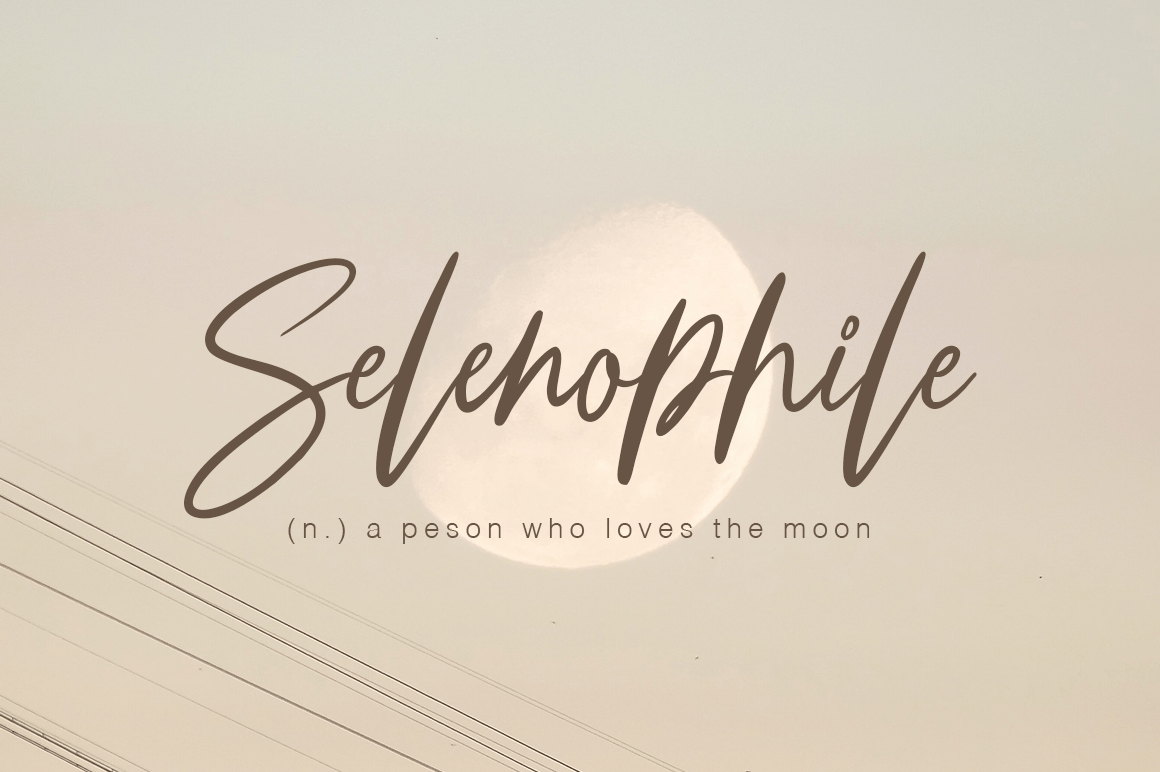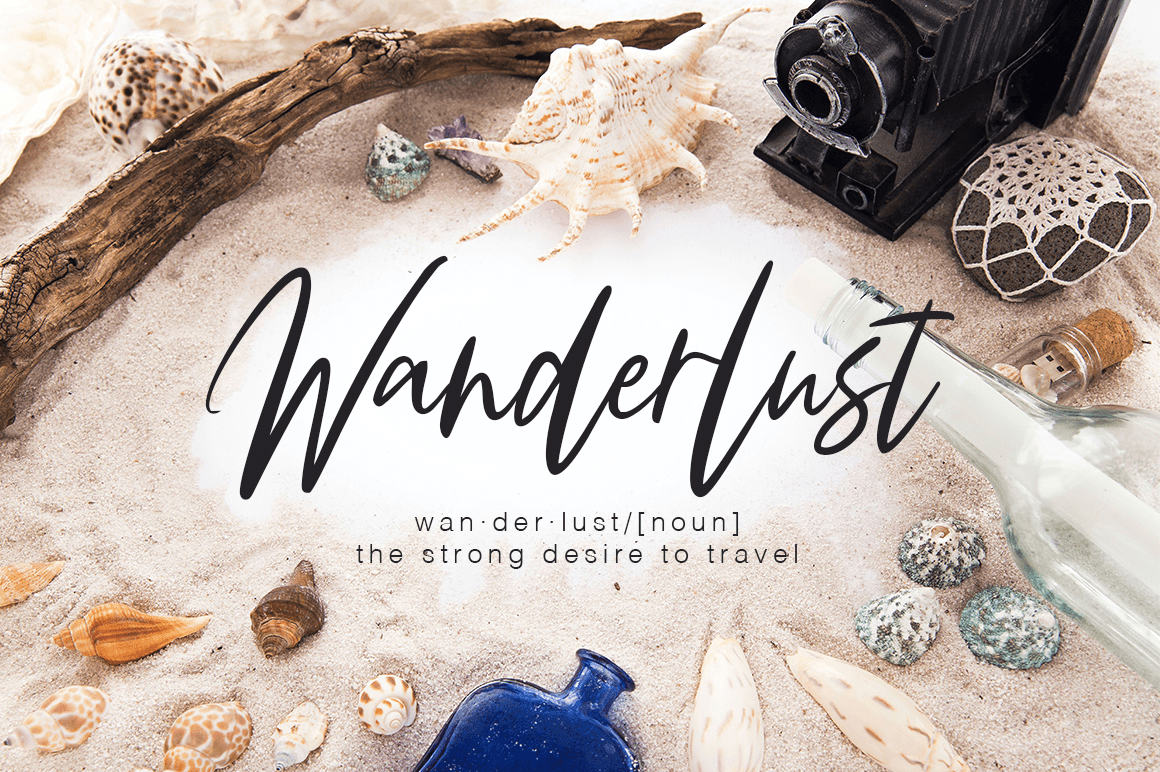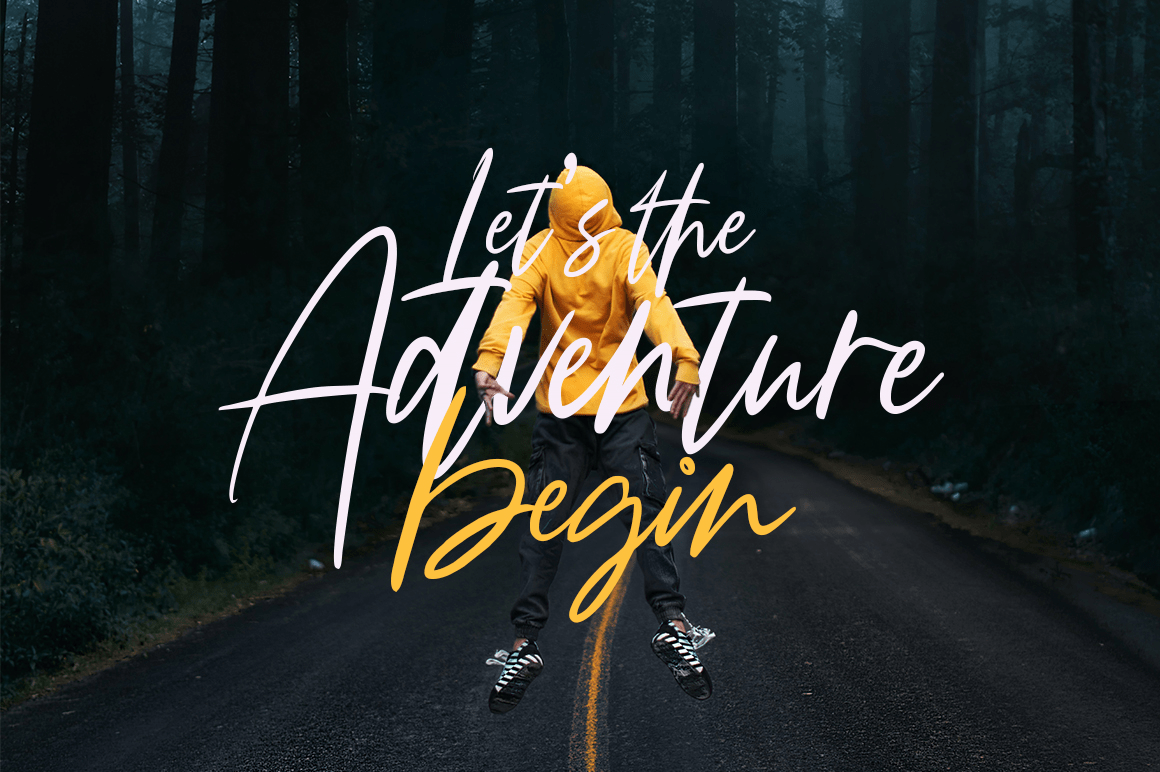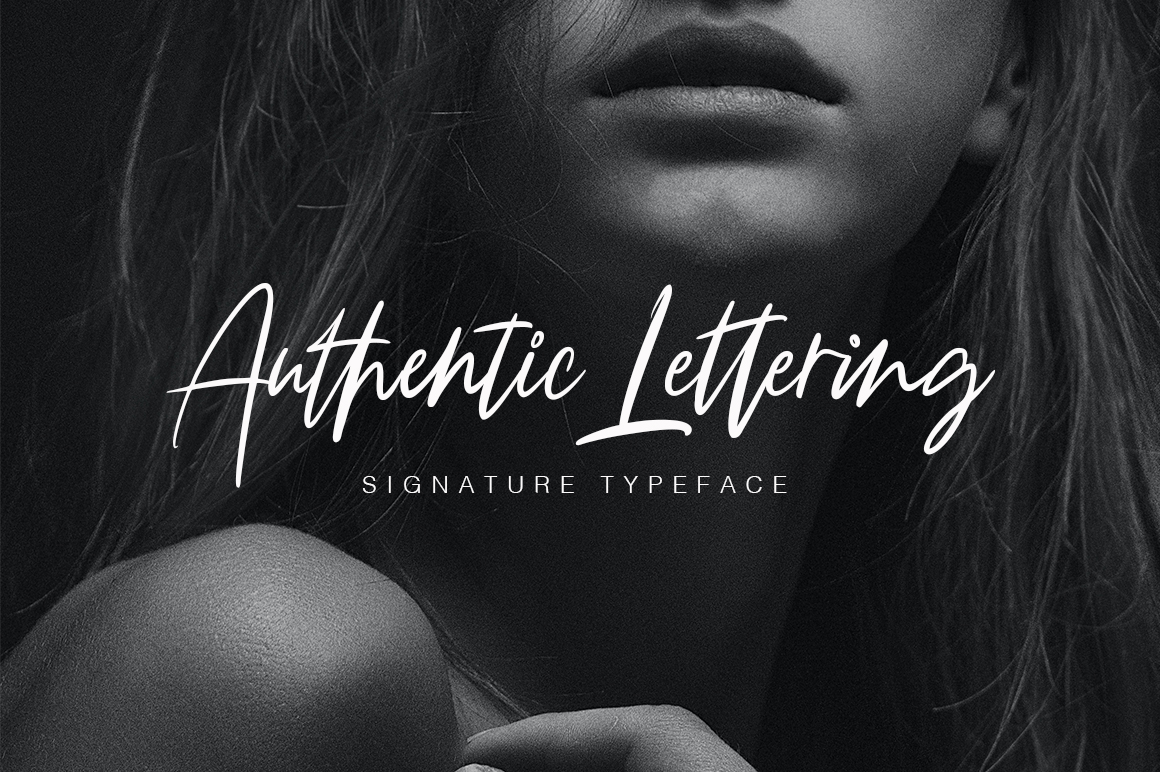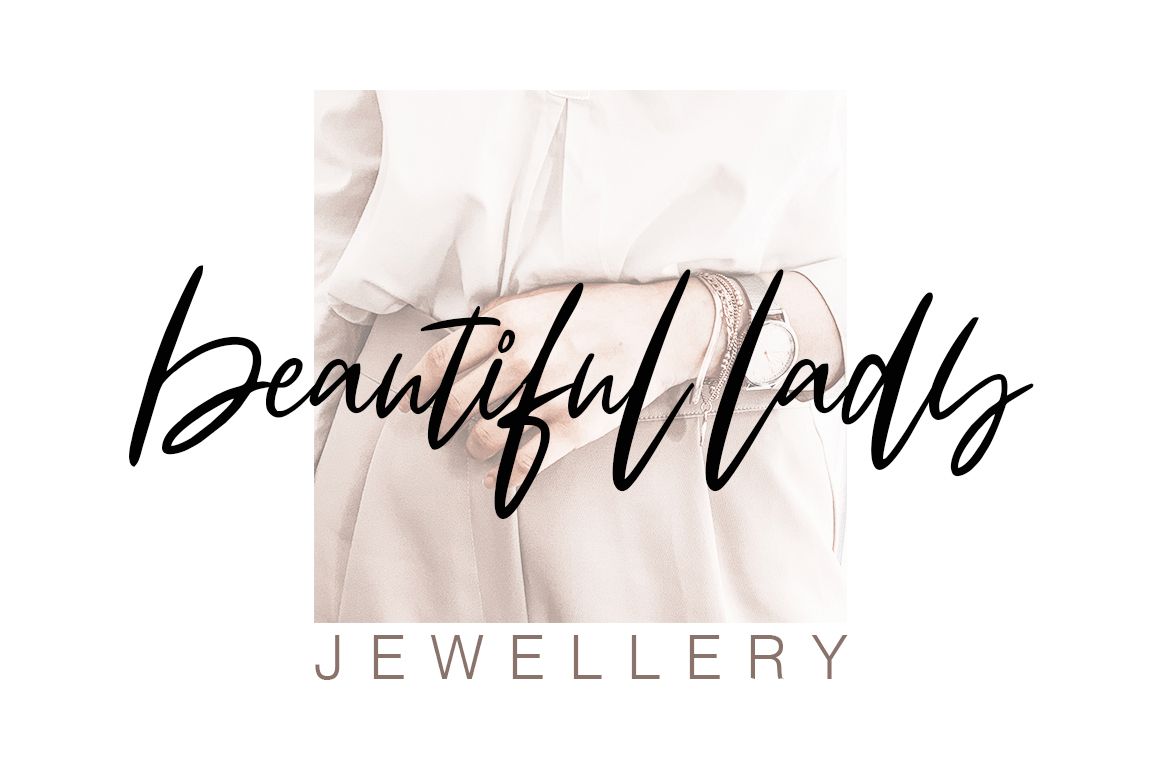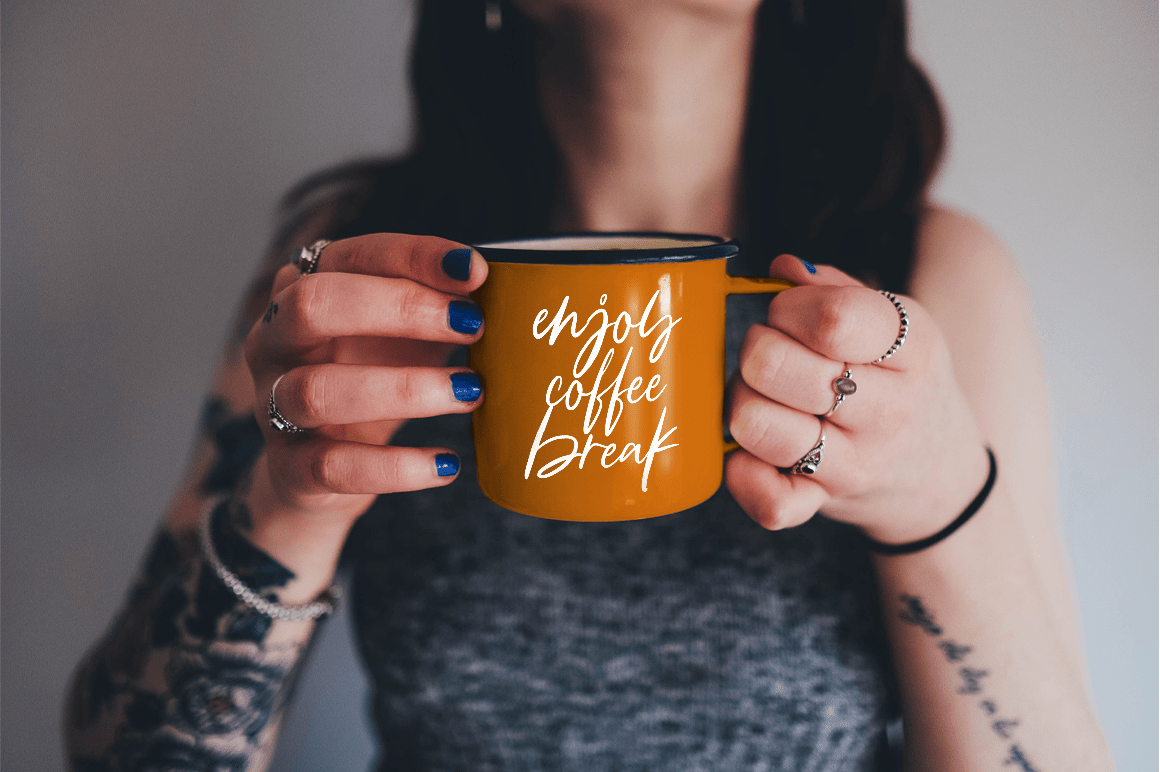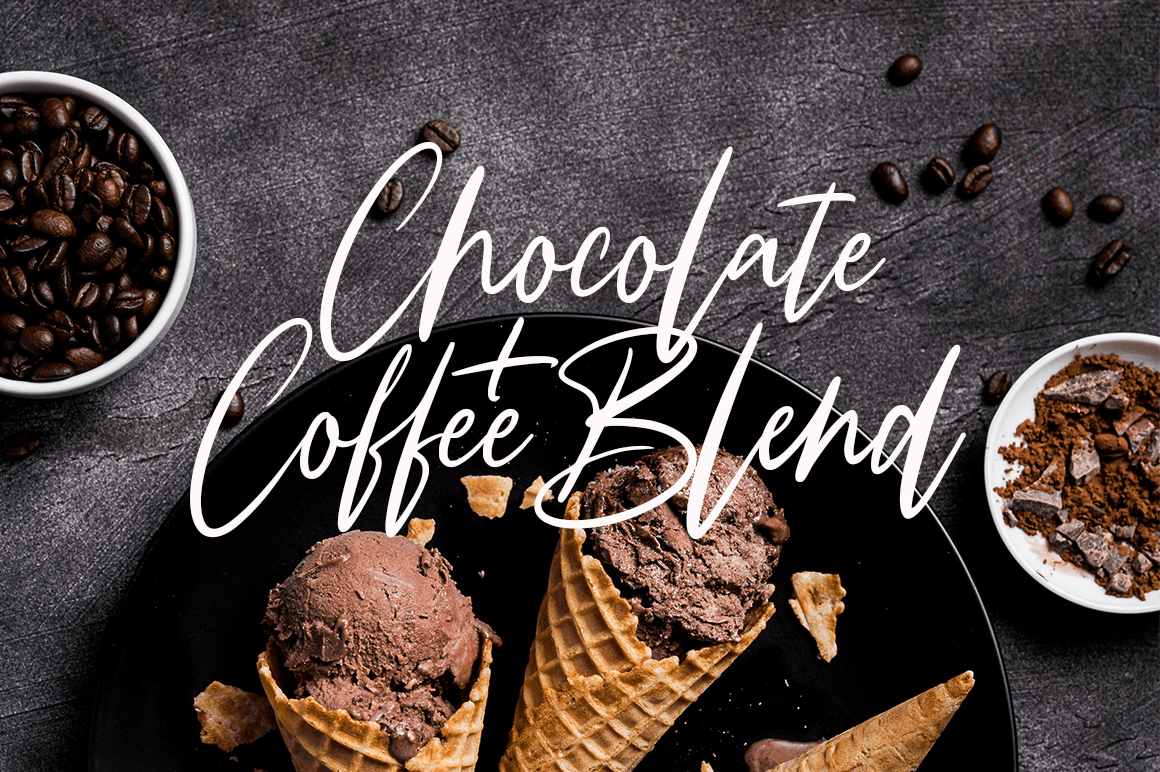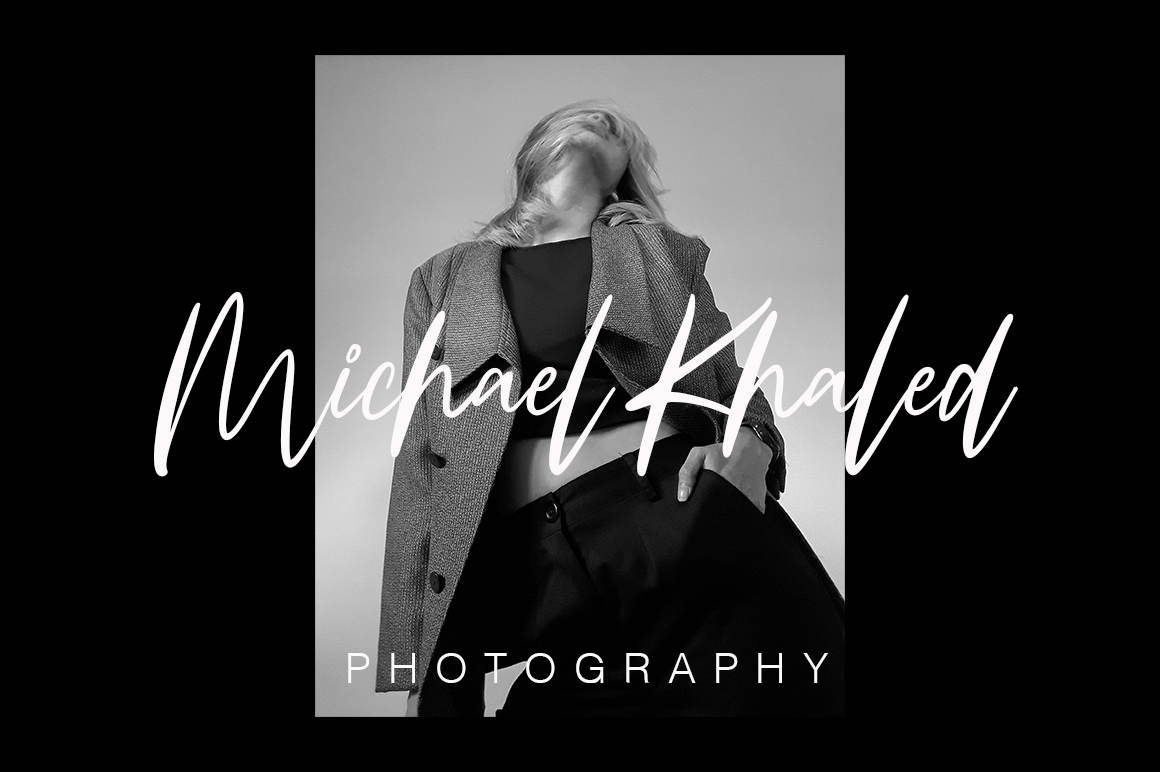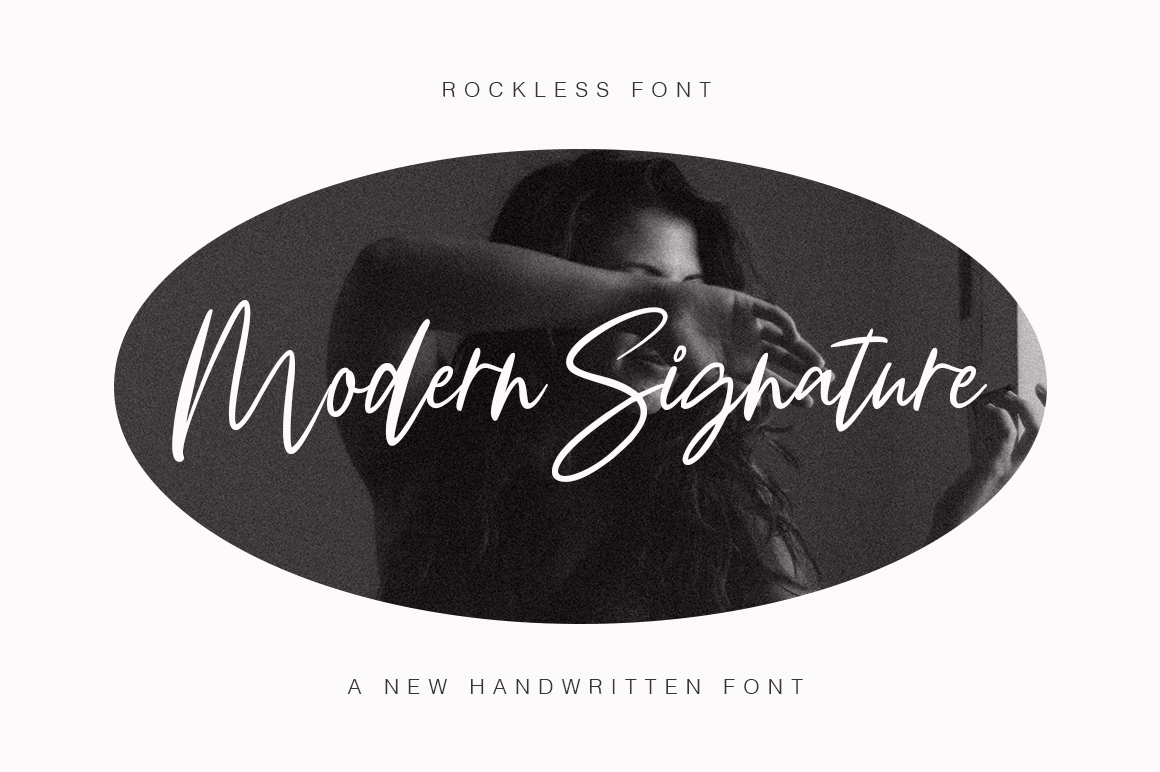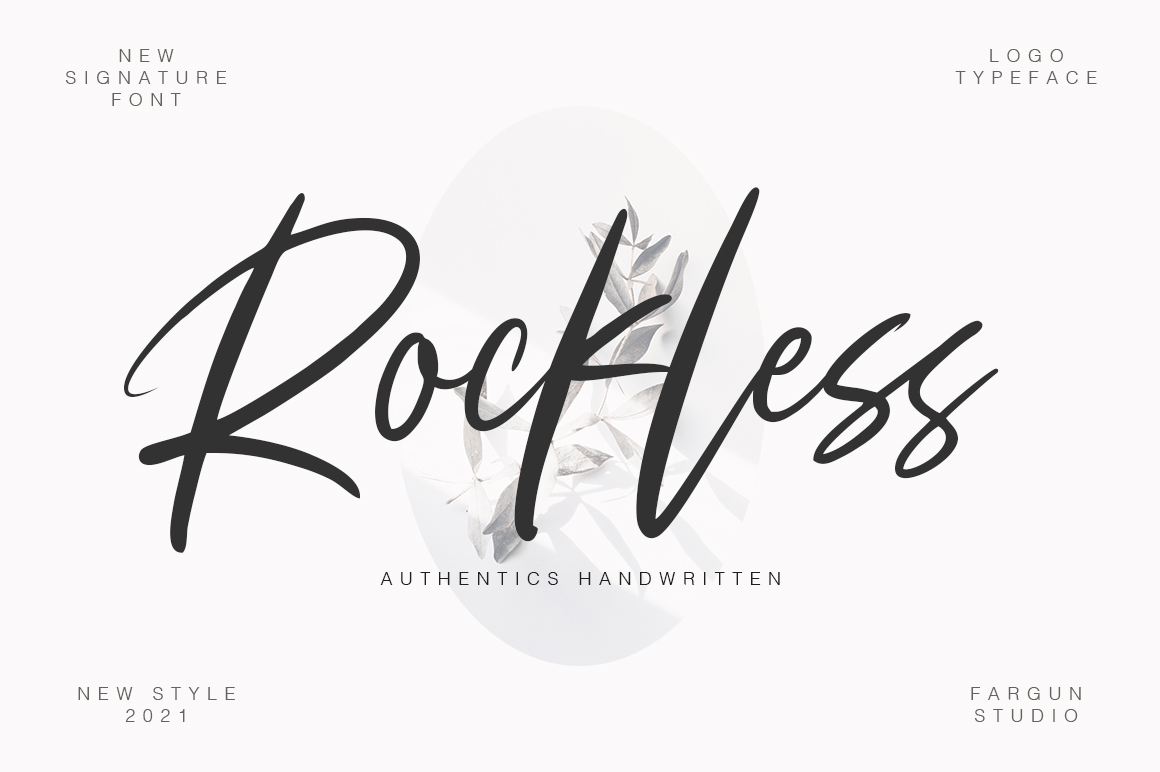
Rockless
About Rockless
Rockless is handwritten stylish copperplate calligraphy fonts, combines from copperplate to contemporary typeface with a dancing baseline, classic and elegant touch. Can be used for various purposes. such as headings, signature, logos, wedding invitation,…